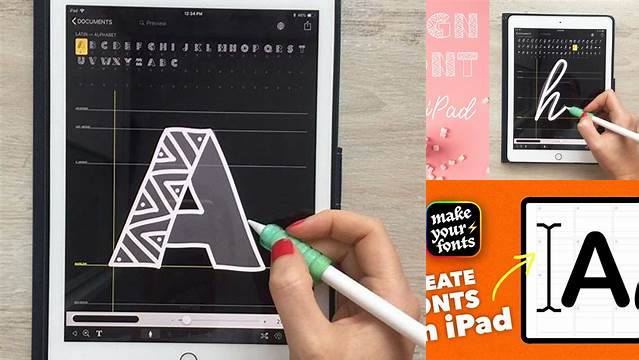
Create Your Own Font On IPad Free: A Step-by-Step Guide
Creating your own font can seem like a daunting task, but with the power of your iPad and the right apps, it’s totally achievable—and even free! Whether you're a seasoned designer or just starting out, this guide will walk you through the steps to design your unique typeface. Let's dive in and explore how you can unleash your creativity and make your own font on your iPad without spending a dime.
Why Create Your Own Font?
Before we jump into the how-to, let’s talk about why you might want to create your own font. Guys, there are so many reasons! Creating your own font allows you to express your unique style and personality in your designs. It’s a fantastic way to make your work stand out and add a personal touch to everything from logos and branding to social media graphics and personal projects. Imagine having a typeface that’s uniquely you – how cool is that? Plus, it’s a great skill to have if you're into graphic design, hand lettering, or any kind of visual art. You get full control over every curve, line, and detail, ensuring that your font perfectly matches your artistic vision. The process of creating a font also deepens your understanding of typography, which is a crucial aspect of design. Understanding how different elements of a letterform work together can significantly improve your overall design skills. For businesses, a custom font can be a powerful branding tool, helping to establish a distinct visual identity. Using a unique typeface in your logo and marketing materials can make your brand instantly recognizable and memorable. For personal projects, creating your own font can add a special touch to invitations, cards, and other creative endeavors. It allows you to infuse your personality into every word, making your projects truly unique. And let's not forget the satisfaction of seeing your creation come to life! There's something incredibly rewarding about designing a font and then using it in your work. It’s a fantastic way to challenge yourself creatively and learn new skills. So, if you're looking for a way to add a personal touch to your designs, enhance your branding, or simply explore your creative potential, creating your own font is an excellent choice. With the tools available on your iPad, the possibilities are endless, and the process can be both fun and rewarding. So grab your stylus, fire up your iPad, and let's get started on creating your own unique typeface!
What You'll Need
To get started on making your own font on your iPad, you’ll need a few essential tools. First and foremost, you'll need an iPad, of course! An Apple Pencil (or a compatible stylus) is highly recommended as it gives you much greater precision and control when drawing the letterforms. Trying to create intricate designs with your finger can be tricky, so a stylus is a worthwhile investment. Next up is the most important thing: a font-making app. There are several great options available on the App Store, but for the purpose of this guide, we’ll focus on free or freemium options. One popular choice is Calligraphr (a web-based app that works well on iPad via a browser) which offers a free plan with basic features. Another option is FontForge, a powerful open-source font editor that, while not specifically designed for iPad, can be used via a remote desktop app or cloud service. For more advanced users, apps like Glyphs (paid) offer a comprehensive suite of tools for professional font design. However, for beginners and those looking to experiment without spending money, the free options are a great place to start. In addition to the font-making app, you might also find a sketching app helpful for brainstorming and creating initial designs for your letters. Procreate, Adobe Fresco, or even the built-in Notes app can be used for this purpose. Sketching out your ideas before diving into the font editor can help you refine your vision and ensure that your final font has a cohesive look. A good understanding of basic typography principles is also essential. While you don't need to be a typography expert, knowing the anatomy of letterforms, the different font styles (serif, sans-serif, script, etc.), and the concepts of kerning, leading, and tracking will help you create a more professional-looking font. There are plenty of online resources and tutorials that can help you learn the basics of typography. Finally, you'll need a bit of patience and creativity. Creating a font is a time-consuming process, especially if you're aiming for a polished and professional result. Don't be afraid to experiment, make mistakes, and learn from them. The more you practice, the better you'll become at designing fonts. So, to recap, you'll need an iPad, a stylus (recommended), a font-making app (such as Calligraphr or FontForge), a sketching app (optional), a basic understanding of typography, and a healthy dose of creativity and patience. With these tools and a bit of effort, you'll be well on your way to creating your own unique font.
Step-by-Step Guide: Creating Your Font
Alright, guys, let’s get into the nitty-gritty of creating your font on your iPad. I’ll break it down into manageable steps, so you can follow along easily. First, we need to brainstorm and sketch our font concept. Before you even open a font-making app, it’s a good idea to think about the style you want your font to have. Do you want it to be elegant and formal, or playful and quirky? Serif, sans-serif, script, or something totally unique? Once you have a general idea, grab your stylus and your favorite sketching app (or even just a piece of paper) and start sketching out some letterforms. Don’t worry about perfection at this stage; the goal is to explore different ideas and find a style that you like. Focus on the basic shapes and proportions of the letters, and try to create a consistent look across the alphabet. Think about the weight (thickness) of the strokes, the contrast between thick and thin lines, and the overall rhythm of the letters. Experiment with different styles and variations, and don’t be afraid to try something completely new. This is your chance to let your creativity shine! Once you have a few sketches that you’re happy with, it’s time to choose your font-making app. As mentioned earlier, Calligraphr is a great free option for beginners, as it’s web-based and relatively easy to use. FontForge is a more powerful (but also more complex) open-source option. If you’re using Calligraphr, you’ll need to create a template to draw your letters on. Calligraphr provides a printable template that you can download and print. Fill out the template by drawing each letter, number, and symbol in the corresponding boxes. Make sure to draw within the lines and try to maintain a consistent style across all characters. Once you’ve filled out the template, scan it or take a clear photo of it with your iPad. Then, upload the image to Calligraphr. The app will automatically recognize the letters and convert them into digital characters. Review each character and make any necessary adjustments. You can use Calligraphr’s editing tools to refine the shapes, adjust the spacing, and add details. If you’re using FontForge, the process is a bit more involved. You’ll need to create each character from scratch using the app’s drawing tools. This gives you more control over the design, but it also requires more time and effort. Start by creating the basic shapes of the letters, and then refine them using FontForge’s curve editing tools. Pay close attention to the spacing and proportions of the letters, and try to maintain a consistent style throughout the font. Whether you’re using Calligraphr or FontForge, you’ll need to pay attention to the kerning (the spacing between individual letters) and the overall spacing of the font. Adjusting these settings is crucial for creating a font that looks balanced and readable. Once you’re happy with the design of your font, you can export it as a TTF or OTF file. These are standard font formats that can be used on most devices and applications. You can then install your font on your iPad and use it in your favorite apps, such as Pages, Procreate, and more. And there you have it – your very own custom font, created entirely on your iPad! It’s a rewarding process that allows you to add a personal touch to your designs and express your unique style. So go ahead, give it a try, and see what amazing fonts you can create!
Tips for Designing a Great Font
So, you're ready to design your own font, huh? That’s awesome! But before you dive headfirst into the process, let's chat about some tips that can help you create a truly great font. These aren't just random suggestions; they're tried-and-true techniques that professional type designers use every day. First things first, consistency is key. This is probably the most important tip I can give you. A great font has a consistent look and feel across all its characters. This means that the stroke weight, the x-height, the ascenders and descenders, and the overall style should be uniform throughout the alphabet. Before you start designing individual letters, establish a set of guidelines or rules for your font. This might include things like the thickness of the strokes, the height of the lowercase letters relative to the uppercase letters, and the angle of any slanted lines. By sticking to these guidelines, you can ensure that your font has a cohesive and professional appearance. Pay attention to negative space. The negative space (the space around and inside the letters) is just as important as the positive space (the letters themselves). The shape and size of the negative space can have a big impact on the readability and overall appearance of your font. Make sure the negative space is balanced and consistent throughout the font. For example, the space inside the letter “O” should be similar to the space inside the letter “A.” Experiment with different shapes and sizes of negative space to see how they affect the look of your font. Don't be afraid to sketch and iterate. Designing a font is an iterative process, which means you'll likely need to sketch and revise your letters multiple times before you're happy with the result. Start by sketching out rough ideas for your letters, and then gradually refine them until you achieve the desired look. Use a sketching app or even a piece of paper to experiment with different shapes, styles, and proportions. Don't be afraid to make mistakes; they're part of the learning process. Get feedback from others. Sometimes it's hard to see the flaws in your own work, which is why it's helpful to get feedback from others. Share your font designs with friends, colleagues, or other designers, and ask for their honest opinions. Be open to criticism, and use the feedback you receive to improve your font. Another set of eyes can often spot issues that you might have missed. Start with a few key characters. You don't need to design the entire alphabet all at once. In fact, it's often easier to start with a few key characters that will help you establish the overall style of your font. These might include the letters “H,” “O,” and “N,” as they represent a good range of shapes and styles. Once you're happy with these characters, you can use them as a basis for designing the rest of the alphabet. And finally, practice makes perfect. Like any skill, font design takes practice. The more you design fonts, the better you'll become at it. So don't get discouraged if your first few fonts aren't perfect. Keep experimenting, keep learning, and keep practicing, and you'll eventually create fonts that you're proud of. So, there you have it – some essential tips for designing a great font. Keep these in mind as you embark on your font-making journey, and you'll be well on your way to creating beautiful and unique typefaces. Now go forth and create!
So, there you have it, guys! Creating your own font on your iPad for free is totally doable, and it’s an incredibly rewarding experience. You've learned about the tools you'll need, the steps to take, and some crucial tips for designing a font that's not just unique, but also professional-looking. Remember, the key to a great font is consistency, attention to detail, and a whole lot of creativity. Don't be afraid to experiment, make mistakes, and learn from them. Every line you draw, every curve you adjust, is a step towards mastering the art of typography. The journey of font creation is a fantastic blend of technical skill and artistic expression. You're not just designing letters; you're crafting a voice, a personality, a visual style that can communicate in ways words alone cannot. Think about the power of a well-designed font in branding, in conveying emotions, in capturing attention. Your font could be the cornerstone of someone's visual identity, the silent storyteller in a book, the eye-catching headline that draws readers in. And the best part? You have the power to bring it to life, right on your iPad, without spending a dime. The tools are there, the knowledge is here, and the only limit is your imagination. Whether you're a seasoned designer looking to expand your skills, a creative hobbyist seeking a new challenge, or someone who simply wants to add a personal touch to their projects, font creation is an avenue worth exploring. It's a journey of discovery, a chance to delve into the intricacies of letterforms, and an opportunity to express your unique artistic vision. So, grab your iPad, fire up your favorite font-making app, and let your creativity flow. The world of typography is waiting, and your font is ready to be born. Who knows, maybe your creation will be the next big thing in the design world! But even if it's just for your own personal use, the satisfaction of seeing your own font come to life is a reward in itself. Happy font-making, everyone! I can’t wait to see what you create.